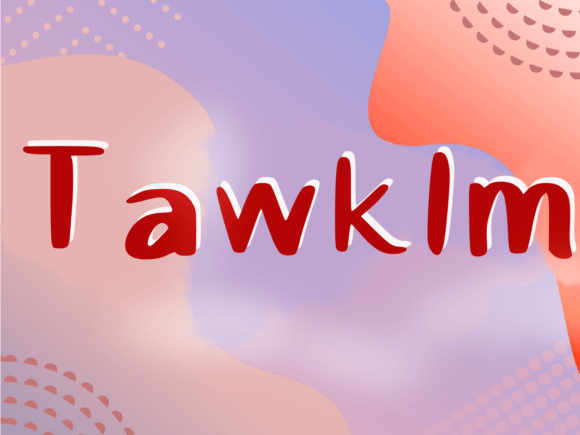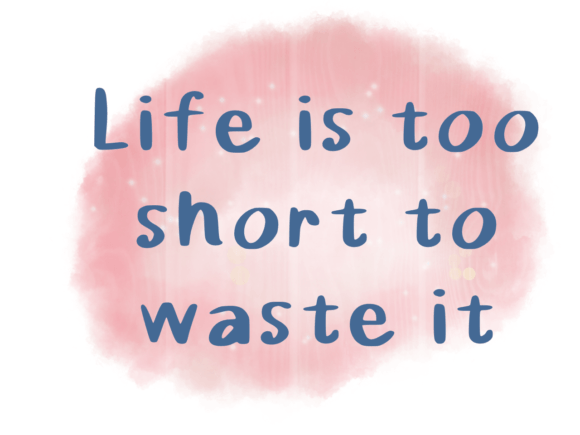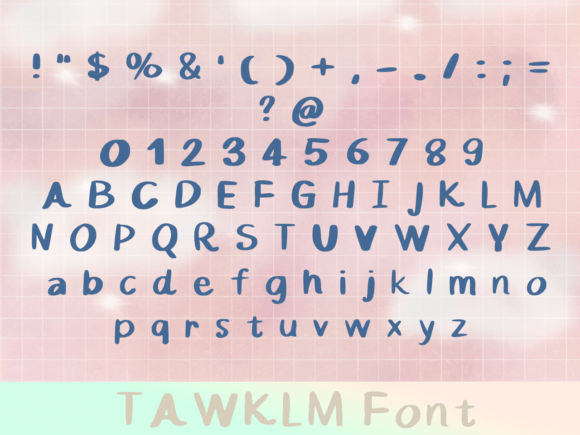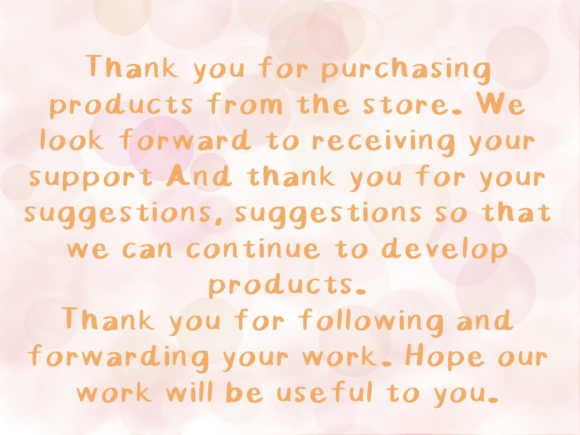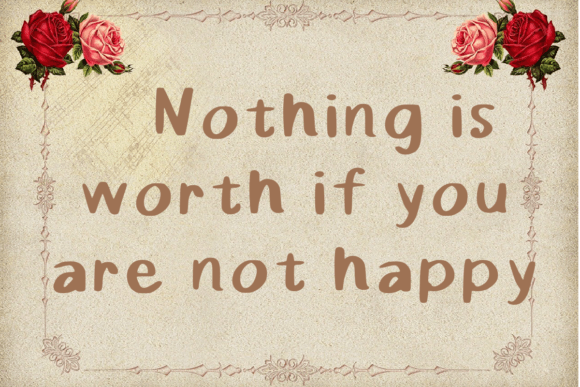
Tawklm Font
The Tawklm Font Download is a fun and quirky handwritten script that instantly adds character to your designs. With its playful energy and unique strokes, this font is perfect for anyone looking to create personalized and creative projects. Whether you are working on crafts, branding, or digital graphics, Tawklm ensures your work feels fresh and exciting.
A Fun and Quirky Handwritten Typeface
The Tawklm script font combines casual handwritten charm with bold strokes. As a result, it feels cheerful and approachable. Furthermore, its quirky shapes make it stand out, giving every design a distinctive personality.
Perfect for Crafts and DIY Projects
Handwritten fonts always bring warmth to creative projects. The Tawklm Font is ideal for crafting, scrapbooking, invitations, and handmade cards. Because of its natural style, each creation feels authentic and unique. In addition, it helps you express a fun and personal vibe in every detail.
Branding and Logo Design with Tawklm Font
Typography defines how people perceive a brand. The Tawklm handwritten font is a great choice for boutique logos, packaging, and promotional designs. Its quirky look makes businesses appear approachable and creative. Therefore, it works especially well for artistic, lifestyle, and playful industries.
Posters, Quotes, and Editorial Layouts
The Tawklm Font Download also excels in posters, motivational quotes, magazines, and book covers. Its unique handwritten style ensures legibility while adding flair. Consequently, it is an excellent typeface for projects that need to inspire and stand out.
In today’s digital-first world, fonts must be versatile across platforms. The Tawklm typeface integrates seamlessly into Instagram graphics, Pinterest boards, YouTube thumbnails, and blogs. Because of its quirky handwritten flow, it makes digital projects fun and engaging.
Why Designers Choose Tawklm Typeface
Designers love fonts that balance creativity with clarity. The Tawklm handwritten script offers personality while staying easy to read. Moreover, its timeless yet quirky style ensures it remains relevant for future projects.